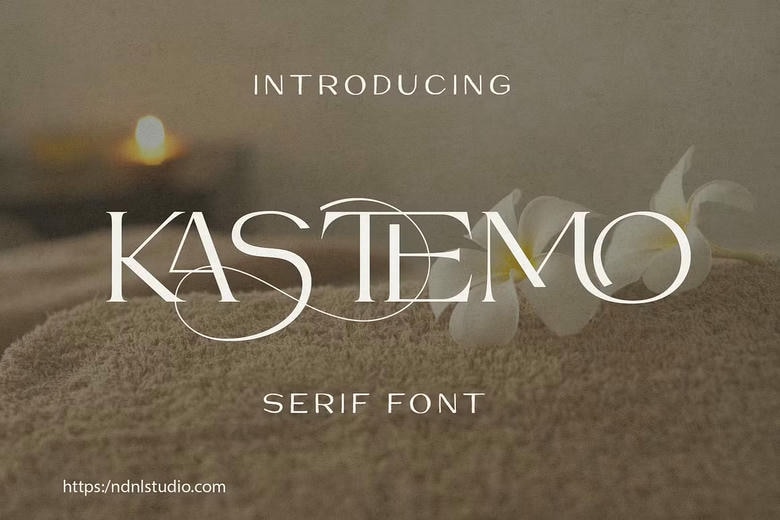
Kastemo Font
Kastemo is an elegant serif font with balanced proportions and high-contrast strokes that give it a graceful appearance. The letters feature smooth curves and subtle details.
Thanks to its rich and expressive style, Kastemo is a great choice for logos, fashion brands, magazines, wedding stationery, invitations, beauty products, packaging, posters, and standout social media graphics.
Kastemo Serif Font